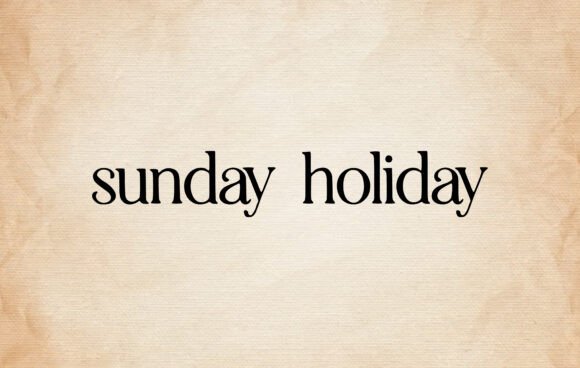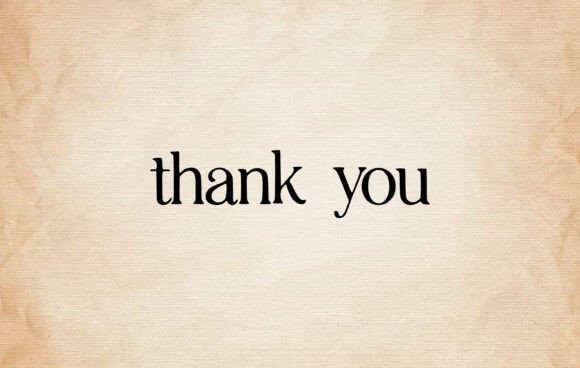
Unlock Your Creativity with Beautiful Font
Have you ever been working on a design project, pouring your heart and soul into it, and then suddenly, the perfect font pops into your head? That’s exactly what happened to us when we discovered the Beautiful Font. Its elegant curves and clean lines immediately captured our attention, and we knew we had to share it with the world.
The Beautiful Font is expertly designed to elevate your creative ideas to new heights. Whether you’re working on a magazine headline, a social media post, or a wedding invitation, this font is the perfect choice. Its legibility and versatility make it a valuable asset for any designer looking to add a touch of sophistication to their work.
- Font Family: Beautiful Font is a high-end serif font, designed for elegant and sophisticated applications.
- Unique Characteristics: Beautiful Font features intricate details, subtle nuances, and a classic feel, making it perfect for luxury brands, high-end publications, and sophisticated designs.
Designer Review: Beautiful Font
Overall, I’m impressed with Beautiful Font’s clean and elegant design. ✨ The font’s subtle curves and rounded edges give it a sophisticated look that’s perfect for high-end brands or luxury products. ✨ The font’s legibility is also top-notch, making it easy to read even at smaller font sizes.
However, there are a few limitations that prevent Beautiful Font from being a perfect solution for all designs.
- ⚠️ Limited font weights: The font only comes in two weights, which may not be enough for designers who need to create a wide range of visual hierarchies.
- ⚠️ Limited language support: The font only supports a limited number of languages, which may not be suitable for global brands or websites that cater to diverse audiences.
- ⚠️ Limited customization options: The font’s design is quite fixed, which may limit the ability to customize it to fit specific design requirements.
Overall, I’d say Beautiful Font is a great addition to any designer’s toolkit, but it’s not a one-size-fits-all solution. It’s perfect for projects that require a high-end, luxurious feel, but may not be suitable for more casual or informal designs.
Beautiful Font is ideal for creating visually appealing headings, titles, and body text in various design projects.
Use it to add a touch of elegance and sophistication to your designs, particularly in branding, advertising, and editorial projects.